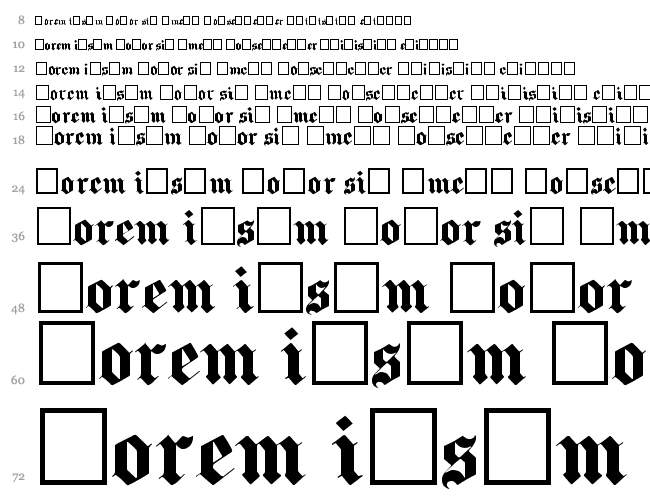
The New York Times Font
The new york times font. Free alternative fonts for new york times logo. Download free fonts for new york times logo. The closest font you can get for the new york times logo is engravers old english bt font.
Newyorktimes truetype font download free newyorktimes font 12 kb newyorktimes font custom preview tool. An improved version of the familiar nineteenth century blackletter as he had executed it in his wedding text. The closest font we can find for the new york times logo is old english which is a blackletter font published by linotype.